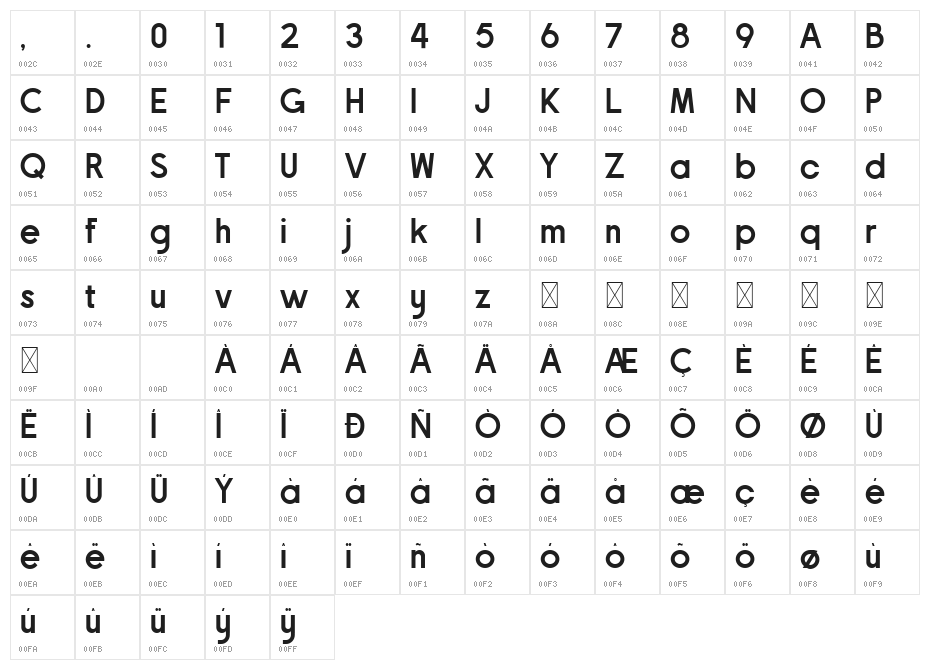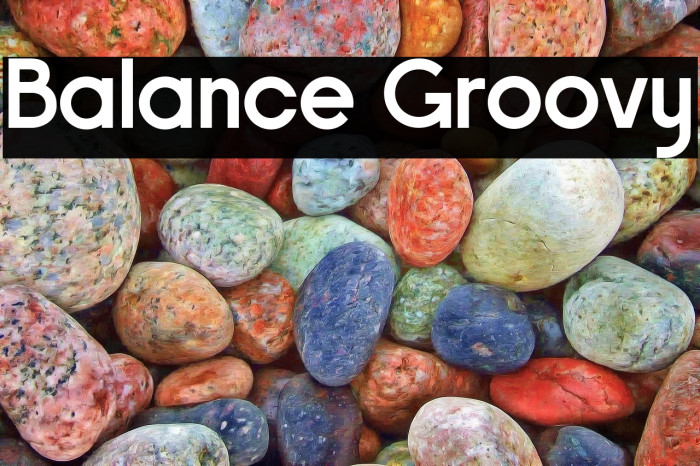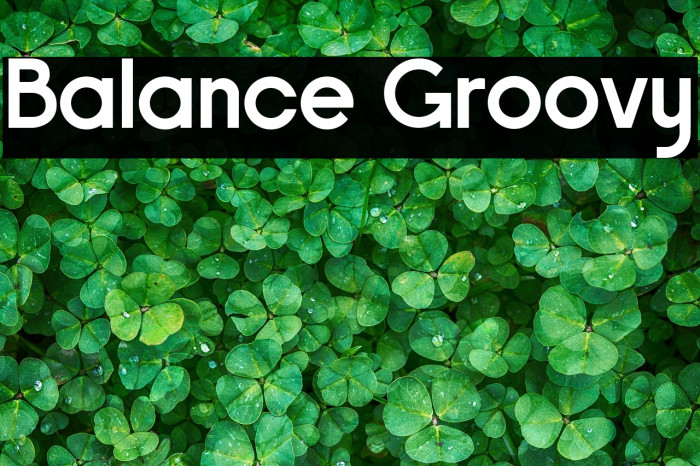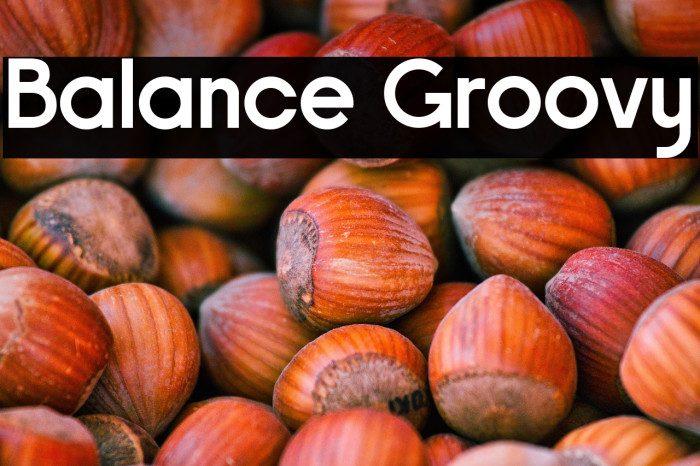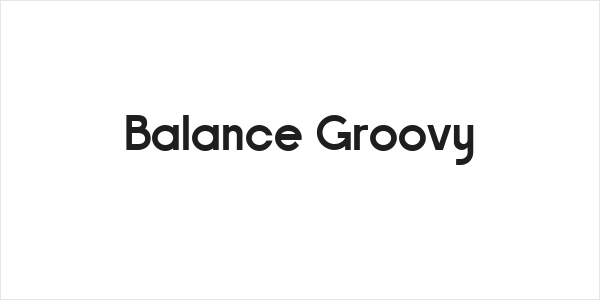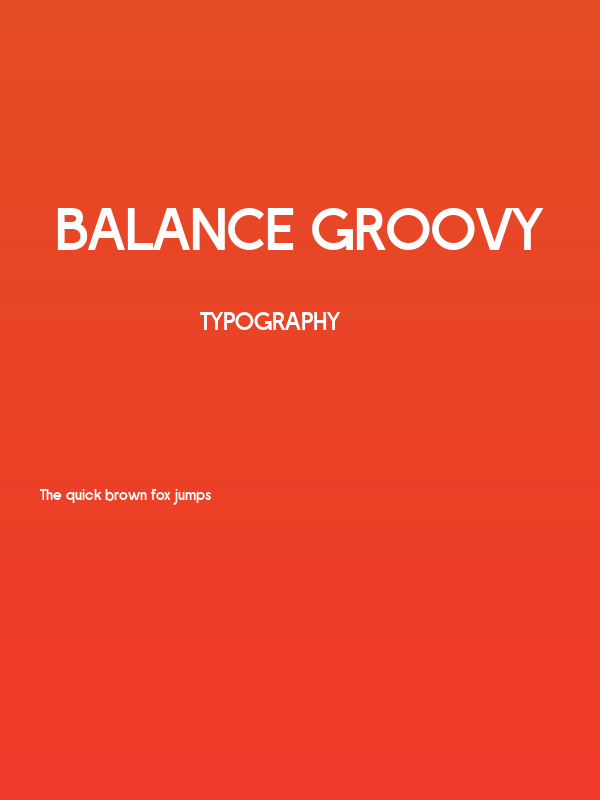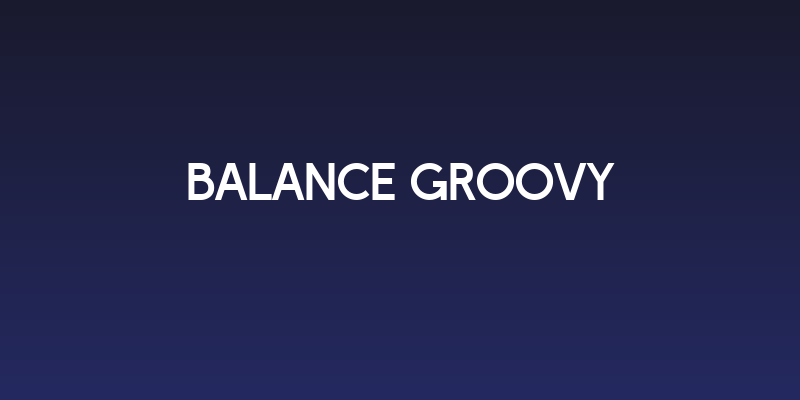
Balance Groovy Font
Balance Groovy Description
This font features a clean, modern design with smooth, rounded edges and a consistent stroke width. The characters are bold and well-defined, making them highly legible. The uppercase and lowercase letters maintain a uniform style, with a slight geometric influence that adds a contemporary touch. The numerals are clear and proportional, complementing the overall aesthetic. This font is versatile, suitable for various design applications where clarity and modernity are desired.
| Proposed Projects | Ideal for branding, advertising, web design, and editorial projects where a modern and clean look is desired. |